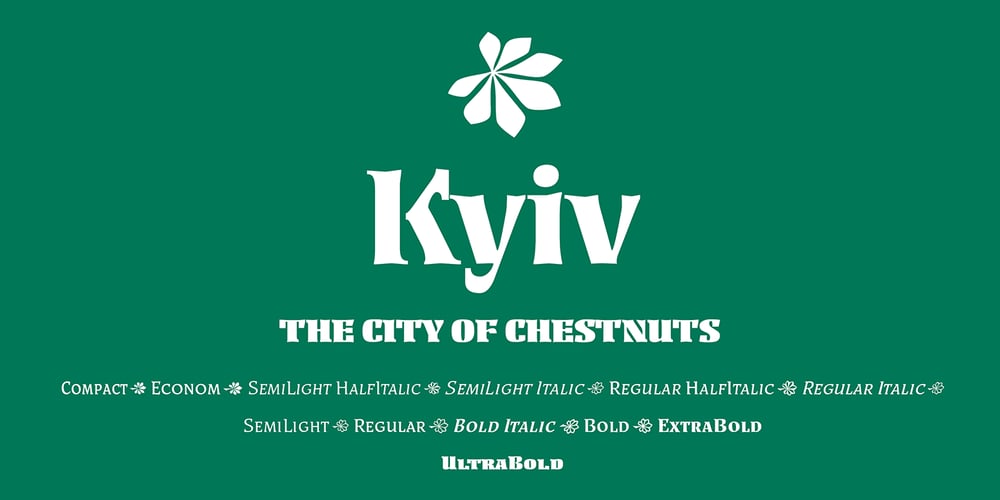
Kyiv Font Family was designed by Viktor Kharyk and published by Apostrof. Kyiv contains 12 styles and family package options. The font Kyiv is an attempt to unite old-style antiqua with the Ukrainian tradition and modern requirements. Besides having usual italics the Renaissance tradition of “semi-italics” renewed, compact weights are also provided. Special charm is added by decorative motives of chestnut leaves and flowers. The weights are included in a way to promote the solution of various tasks both text, and an accidental set in various combinations. The font Kyiv was awarded the 2nd prize in category of text fonts in the first Ukrainian typeface competition Ruthenia in 2010.